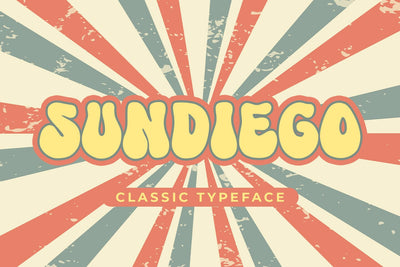
Sundiego
introducing
SUNDIEGO
- classic typeface -
SUNDIEGO is a retro-style display font.
It is great for branding, quotes, logos, t-shirt designs, tote bag designs, cards, banners, social media, and more.
- All Uppercase
- Numeral
- Punctuation
Abo Daniel Studio